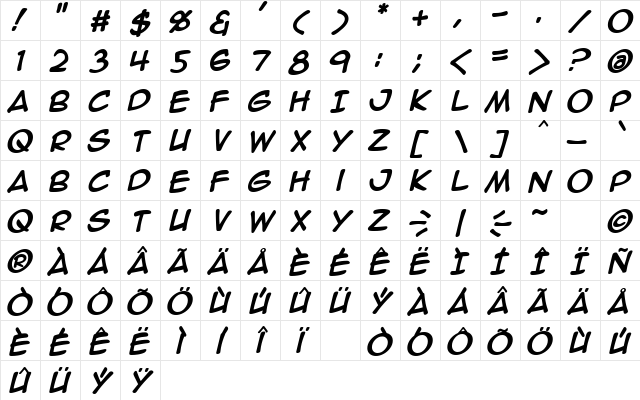
Complete Anime Ace 2.0 BB Bold glyph index. Displaying only characters natively supported by Anime Ace 2.0 BB Bold font.
Anime Ace 2.0 BB is a composed and adaptable typeface that performs quietly and consistently across a wide range of design contexts. Its bold stroke weight gives it real presence on the page.
Who designed the Anime Ace 2.0 BB Bold font?
This font was published by Nate Piekos. Blambot.com. Check the technical specs section for copyright and designer details.